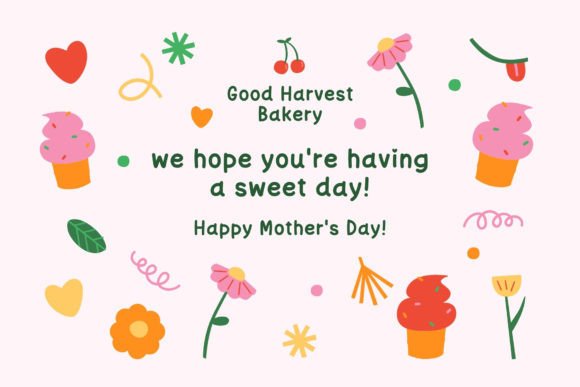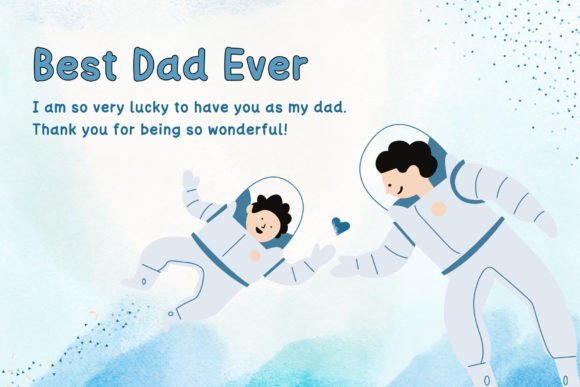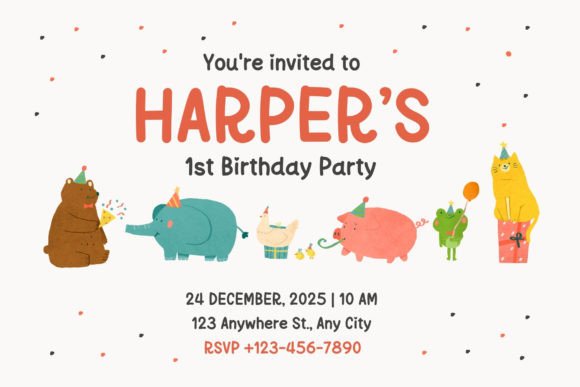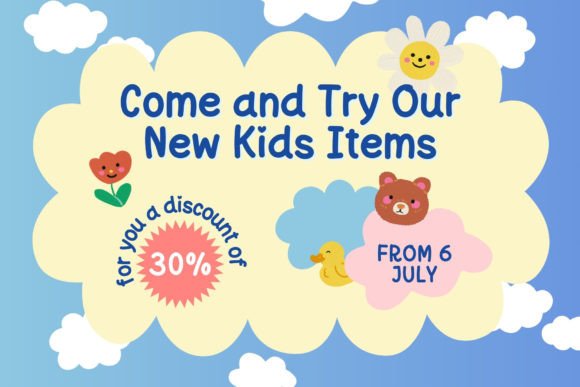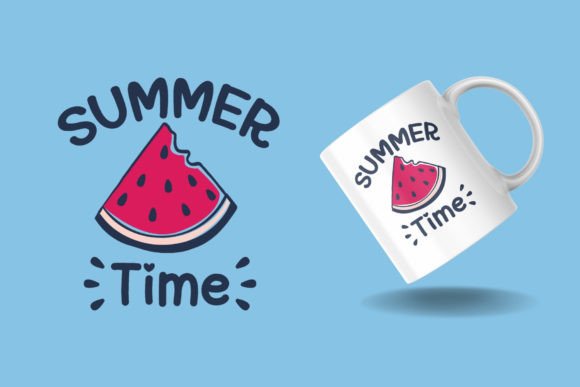
Have you ever stared at a blank page, feeling stuck and unsure of where to begin? I’m sure many of us have been there. But what if you could infuse your project with a dash of cuteness and simplicity, making it instantly engaging and memorable?
Enter Fox Minds Font, a charming handwritten sans-serif font designed to bring a smile to your audience’s faces. With its clean lines and easy-to-read design, Fox Minds Font is the perfect choice for a wide range of creative projects, from inspirational quotes to captivating headings and engaging blogs.
As a designer, you’ll love Fox Minds Font for its versatility and value. Not only does it add a delightful touch to any project, but it also comes with a special bonus – Cute Doodle SVG and PNG 300 dpi files – making it a must-have addition to your design toolkit.
Key Features of Fox Minds Font
- Unique Characteristics: The font features a unique blend of modern and vintage elements, with a distinctive flair that sets it apart from other sans-serif fonts. The Fox Minds Font is perfect for designers looking to add a touch of sophistication and elegance to their work.
Designer Review: Fox Minds Font
Overall, Fox Minds Font is a decent font with its own unique charm. ✨ The font’s quirky, handwritten feel makes it perfect for creative projects, such as branding for small businesses or advertising campaigns.
Here are some of the things that work well:
- Expressive and emotive characters that convey a sense of personality
- Good legibility, making it suitable for body text and headings
- Support for a wide range of languages, including Latin and Cyrillic scripts
- Available in a range of weights and styles, from light to bold
- ⚠️ The font’s irregularity can be challenging to work with, especially for designers who prefer more traditional typography
- ⚠️ Some characters may be difficult to read in certain contexts, such as small text or at high resolutions
- ⚠️ The font’s unique feel can be polarizing, and may not appeal to all audiences
Overall, Fox Minds Font is a solid choice for designers looking for a quirky, handwritten font. While it may not be suitable for all projects, it’s a great option for those who want to add some personality to their designs.
Tips for Getting the Most Out of Fox Minds Font
Use Fox Minds Font for creative projects such as branding, advertising, and packaging design.
Combine Fox Minds Font with bold colors and geometric shapes to create a unique visual identity.
Experiment with different font sizes and styles to create visual interest and hierarchy in your design.
Use Fox Minds Font for:
Branding and logos
Advertising and marketing materials
Package design and labeling